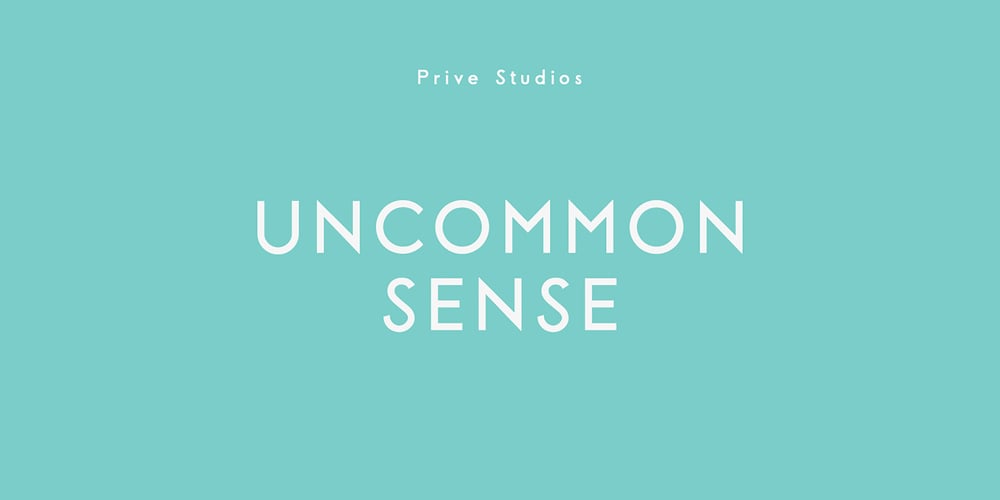
Skin Font Family was designed by Max Prive and published by Max Prive. Skin contains 1 styles and family package options. Skin is a sharp, luxe sans serif typeface. It’s ultra clean, ultra minimalist, with a hint of retro aesthetics.